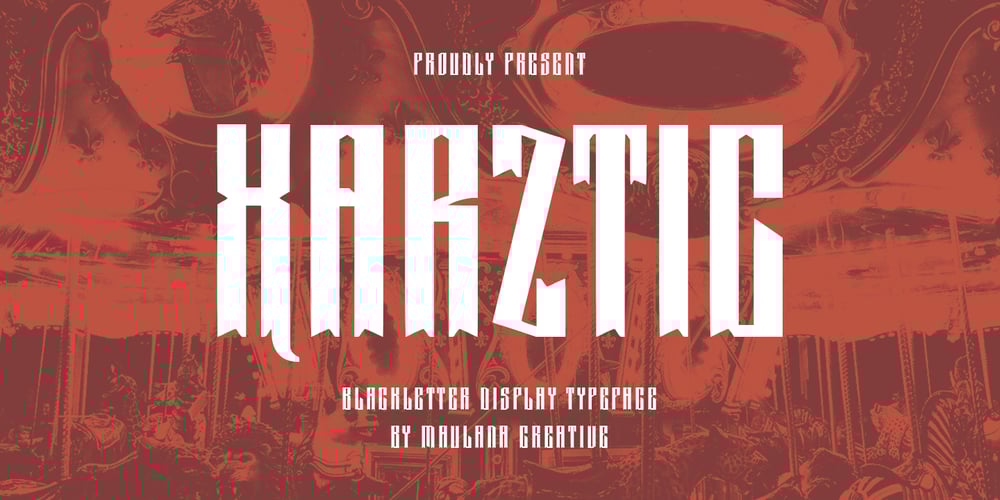
MC Xarztic Font Family was designed by Gilang Maulana and published by Maulana Creative. MC Xarztic contains 1 styles and family package options. Xarztic blackletter display typeface. Heavy stroke, fun character with a bit of ligatures. To give you an extra creative work. Xarztic blackletter display typeface support multilingual more than 100+ language. This font is good for logo design, Social media, Movie Titles, Books Titles, a short text even a long text letter and good for your secondary text font with script or serif. Make a stunning work with Xarztic blackletter display typeface. Cheers,Maulana Creative